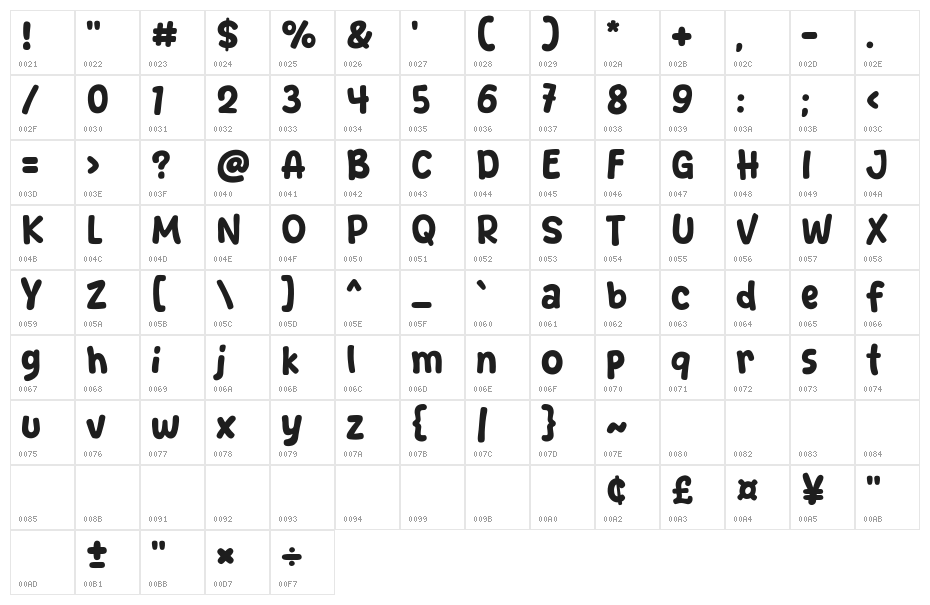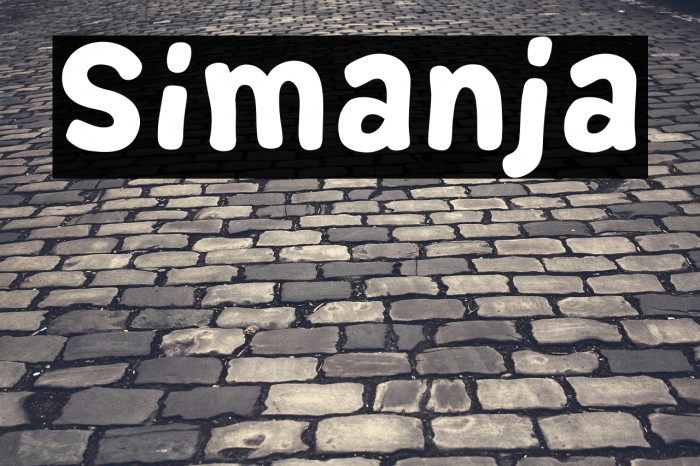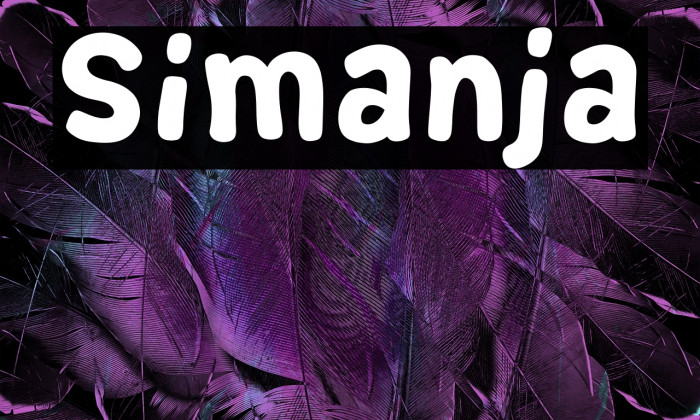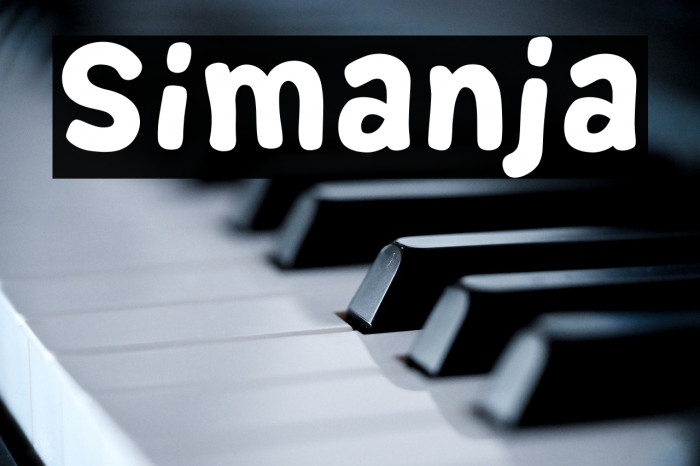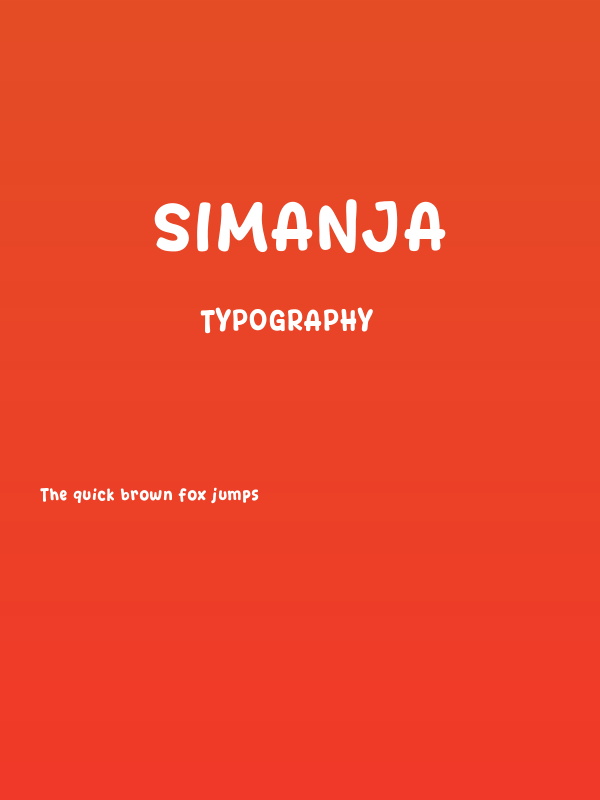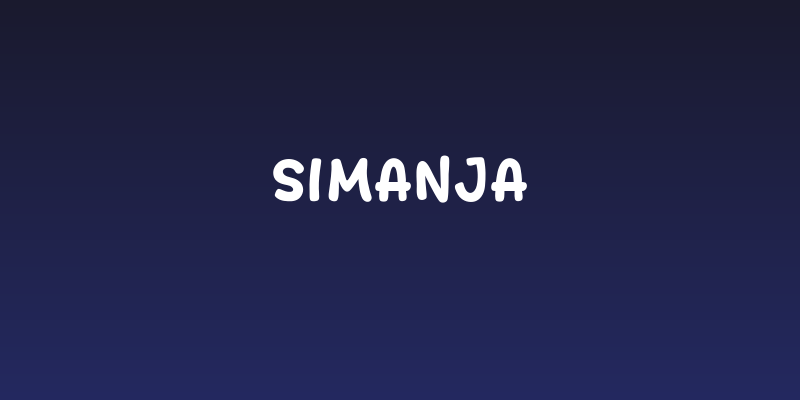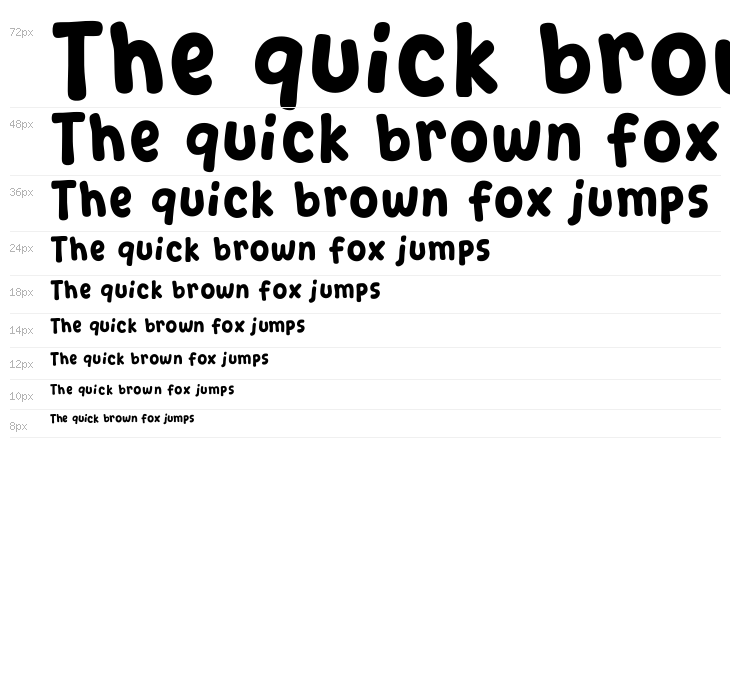
Simanja Font
Simanja Description
This playful and bold typeface features rounded, thick strokes that give it a friendly and approachable appearance. The letters are slightly irregular, adding a whimsical touch that makes it stand out. The font maintains a consistent weight throughout, with smooth curves and a casual style that is both inviting and easy to read. It includes a full set of uppercase and lowercase letters, numbers, and a variety of special characters, making it versatile for different uses. The overall design is reminiscent of hand-drawn lettering, which adds a personal and informal feel to any project.
| Overall Style | Playful |
| Use Case | Headlines, Logos, Informal Text |
| Proposed Projects | Ideal for children's books, playful branding, greeting cards, and informal digital content. |